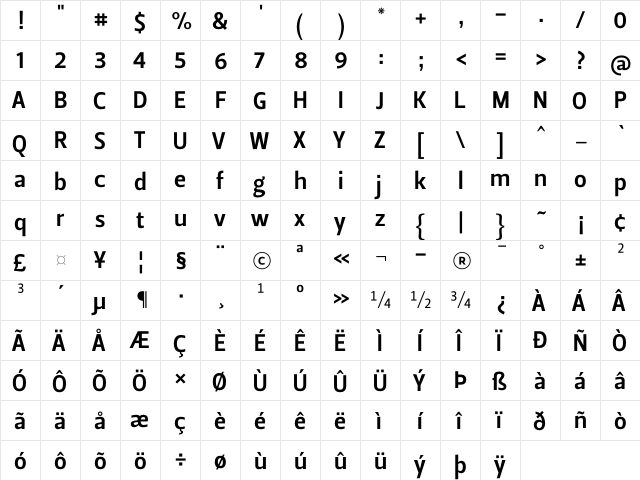
Leitura Sans Grot 3
| Foundry | Dino dos Santos _DSType |
| Designer | Dino dos Santos |
Design Context for Leitura Sans Typeface
Leitura Sans is a composed and adaptable typeface that performs quietly and consistently across a wide range of design contexts.